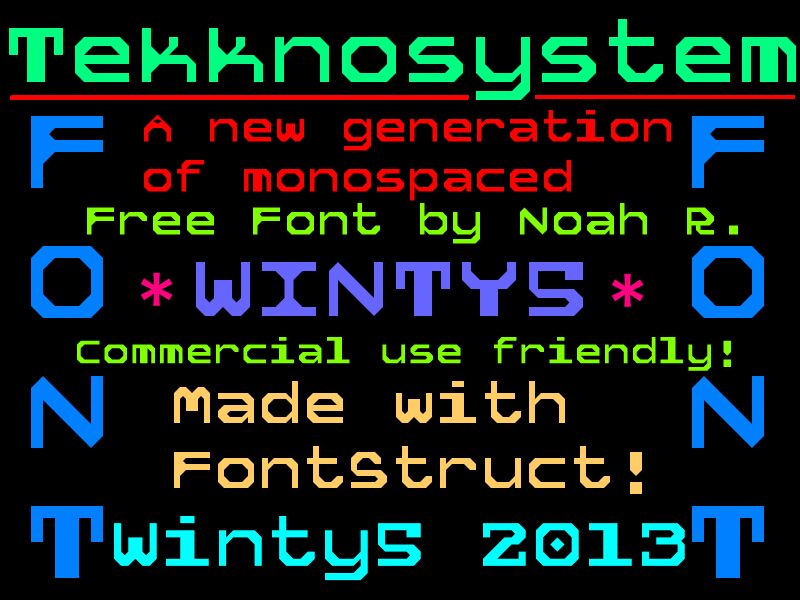
5 Tekknosystem is a free futuristic display font with broad, angular letters and a hard mechanical silhouette. Octagonal curves, clipped corners, and squared joins give the alphabet the look of custom machine lettering. The forms are dense but not uniform.
It can turn a game title into an interface emblem, and the same look suits electronic music posters. Tech packaging and science-fiction events gain an industrial edge from its cutaway details. Its strongest audience is designers working with arcade culture, robotics, or underground electronic scenes.